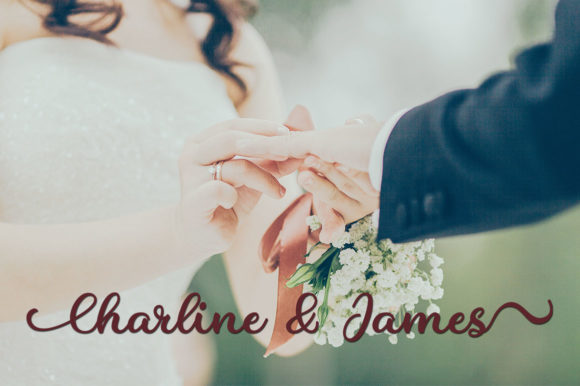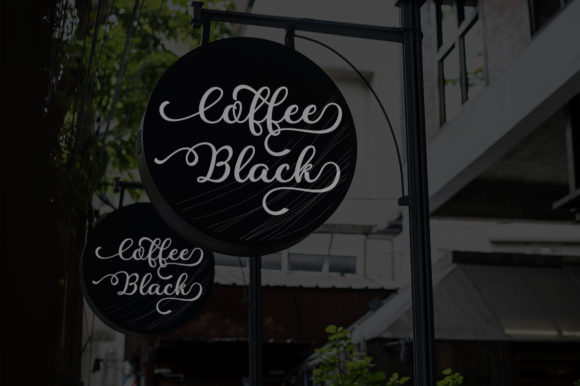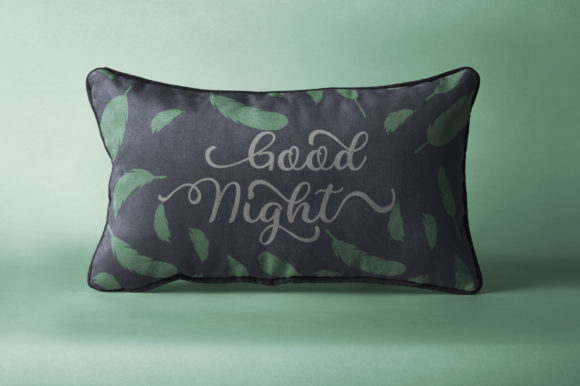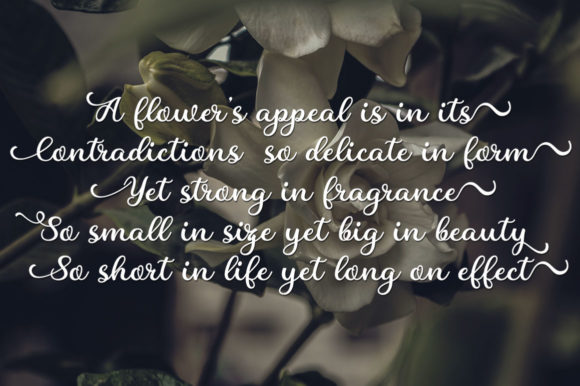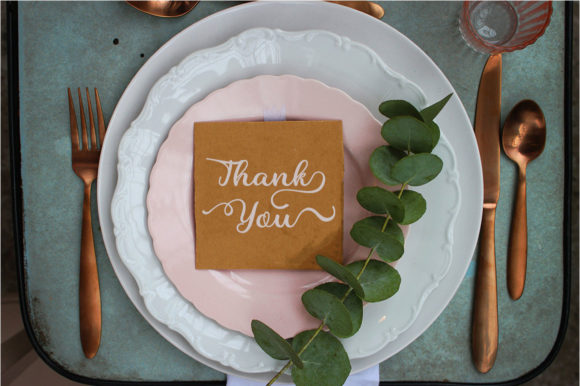
HomeScript FontsCharline Font Script Fonts Charline Font FacebookXPinterestWhatsApp Charline Font Poster 2 Charline Font Poster 3 Charline Font Poster 4 Charline Font Poster 5 Charline Font Poster 6 About Charline Font Charline is a typeface featuring fresh & modern style. Get inspired by its charming curves! DOWNLOAD NOW People also explored Miguel Font Mellady Font Blondie Rainbow Font Magnetico Font MFC Chaplet Monogram Mens Brown Bella Canvas 3001 Mockup Tee Brasti Font Sevens Font Story Font 325 0 TagsCharline Font Previous articleYamada FontNext articleBeauty Signature Font LEAVE A REPLY Cancel reply Comment: Please enter your comment! Name:* Please enter your name here Email:* You have entered an incorrect email address! Please enter your email address here Website: Save my name, email, and website in this browser for the next time I comment. Personal Use Free The Quick Personal Use Free Read more about this font Written by Hand Personal Use Free Read more about this font Artisan Signature Personal Use Free Read more about this font Engebrechtre Personal Use Free Read more about this font BLOG How to Cut Any Font on Cricut: Convert a Font to SVG (Free) Turn any font into a clean SVG so it cuts crisp on Cricut - a quick 3-step workflow using a free font-to-SVG tool. Best Fonts for YouTube Videos: Make Your Thumbnails Stand Out 5 Fonts That Will Dominate Design Trends in 2026 Free vs Paid Fonts: Why Investing in Premium Fonts Is Worth It